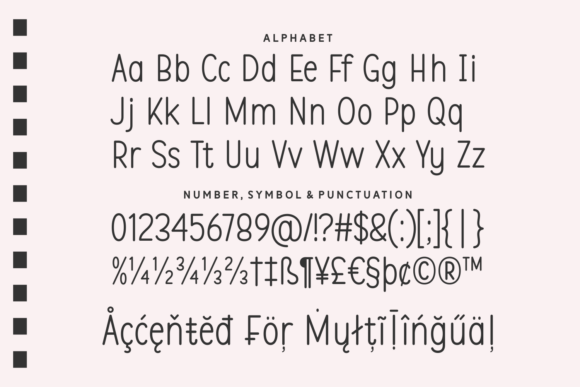
Special Modern Font
Special Modern is a simple sans serif font with a clean and contemporary feel. Its rounded strokes and balanced proportions create a friendly yet professional look, making it perfect for branding, editorial design, social media graphics, and everyday projects. With its minimalist charm, this font ensures readability while keeping a modern edge.